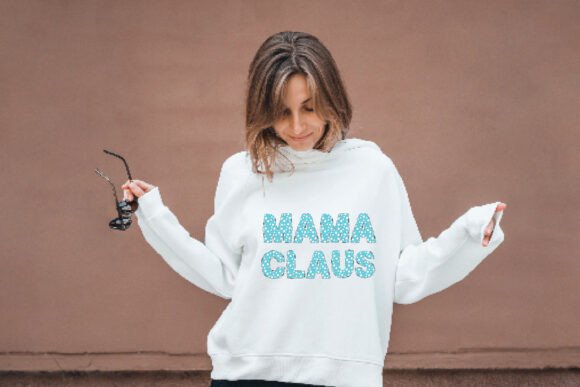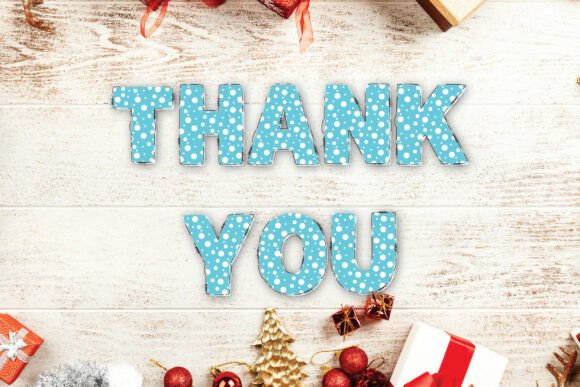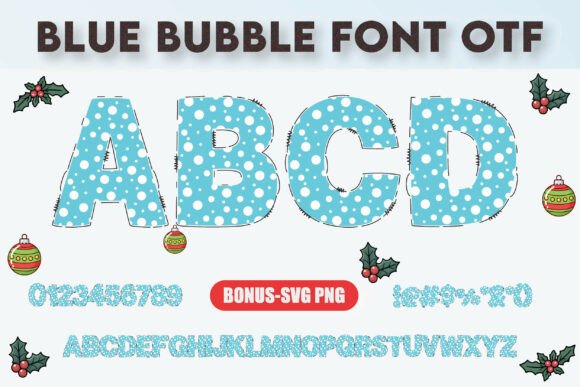
Add a Splash of Fun with the Blue Bubble Font
Have you ever been in the middle of a design project, and suddenly, you just can’t seem to find the right font? I recall a particularly frustrating moment when I was working on a kids’ party invitation, and I needed a font that was playful, cheerful, and eye-catching. That’s when I stumbled upon the Blue Bubble font, and it completely transformed my design. In this article, we’ll dive into the world of Blue Bubble, exploring its features, uses, and some practical tips on how to make the most of this delightful font.
A Personal Design Moment: The Struggle is Real
I was working on a project for a kids’ birthday party, and I wanted to create an invitation that would make the kids (and their parents!) excited. I tried font after font, but nothing seemed quite right. That’s when I discovered Blue Bubble, and it was love at first sight! The smooth, rounded bubble-style letters in a vibrant blue tone instantly captured the playful spirit of the party.
- ✨ The Blue Bubble font is incredibly versatile and can be used for a wide range of projects, from kids’ party invitations to classroom décor.
- ✅ The font features smooth, rounded bubble-style letters that are easy on the eyes and add a touch of playfulness to any design.
- 🎉 The vibrant blue tone is bright and cheerful, making it perfect for designs that need a pop of color.
- 🔍 The font includes a wide range of characters, including uppercase and lowercase letters, numbers, and common symbols.
The Designer Inspiration Behind Blue Bubble
The Blue Bubble font was inspired by the joy and playfulness of childhood. Imagine a designer who spent countless hours creating bubble-themed artwork for kids’ parties and school projects. They wanted to create a font that would capture the essence of fun and friendliness, and thus, Blue Bubble was born.
In conclusion, the Blue Bubble font is a fantastic addition to any designer’s toolkit. Its playful, cheerful vibe makes it perfect for a wide range of projects, from kids’ party invitations to classroom décor. With its ease of use and compatibility with popular design software, Blue Bubble is sure to become a favorite font in your collection.